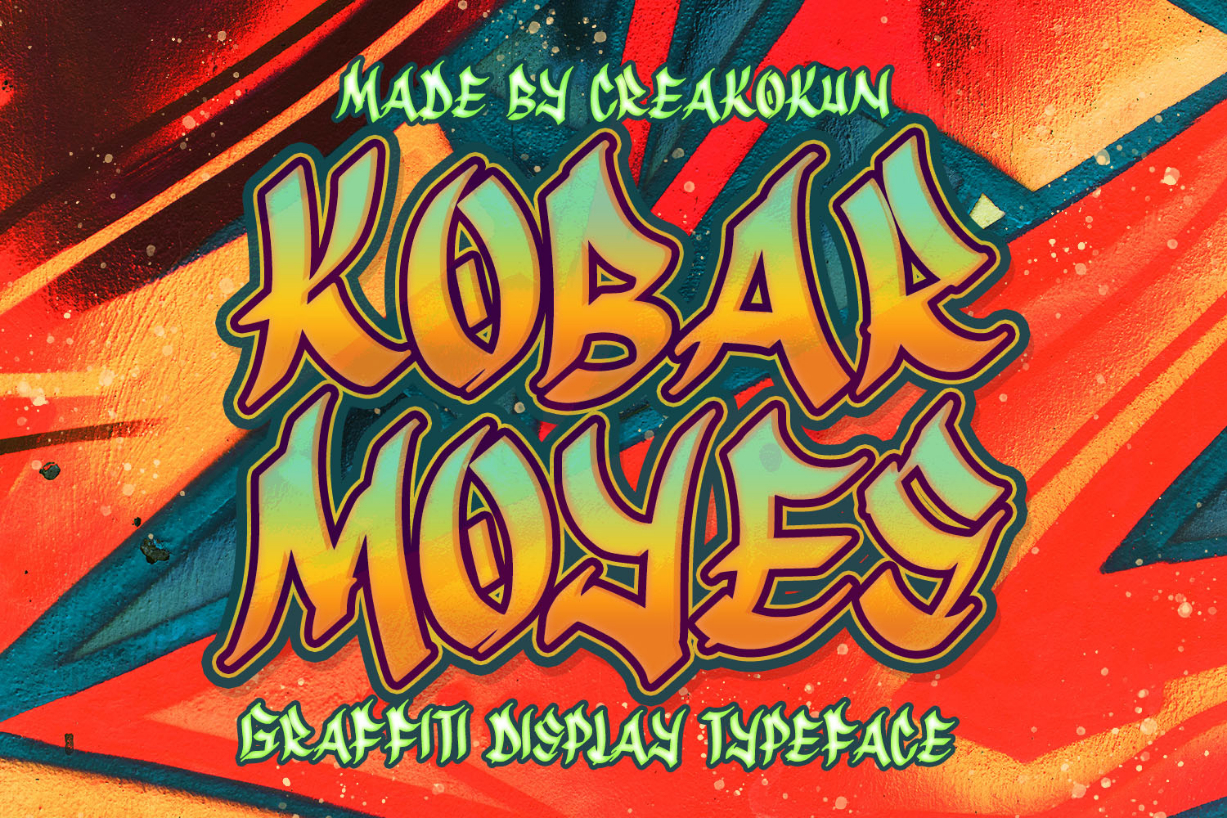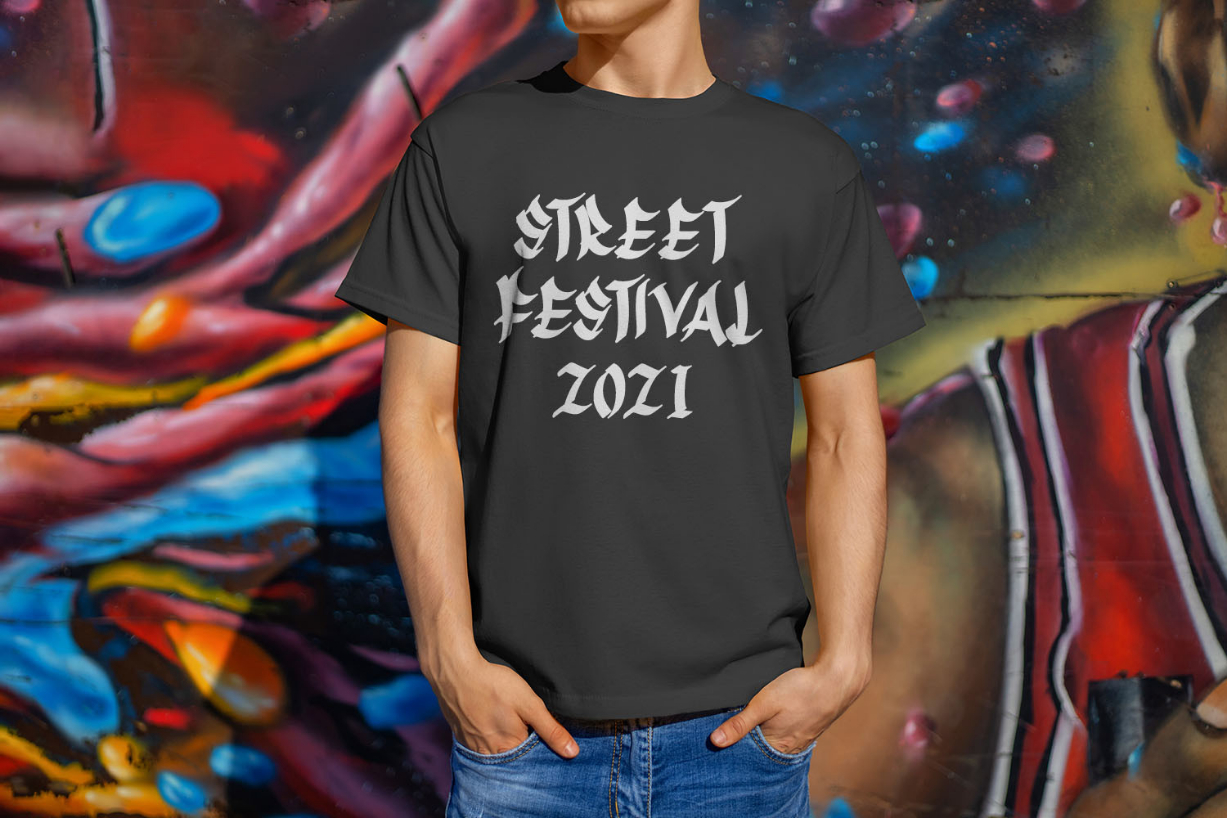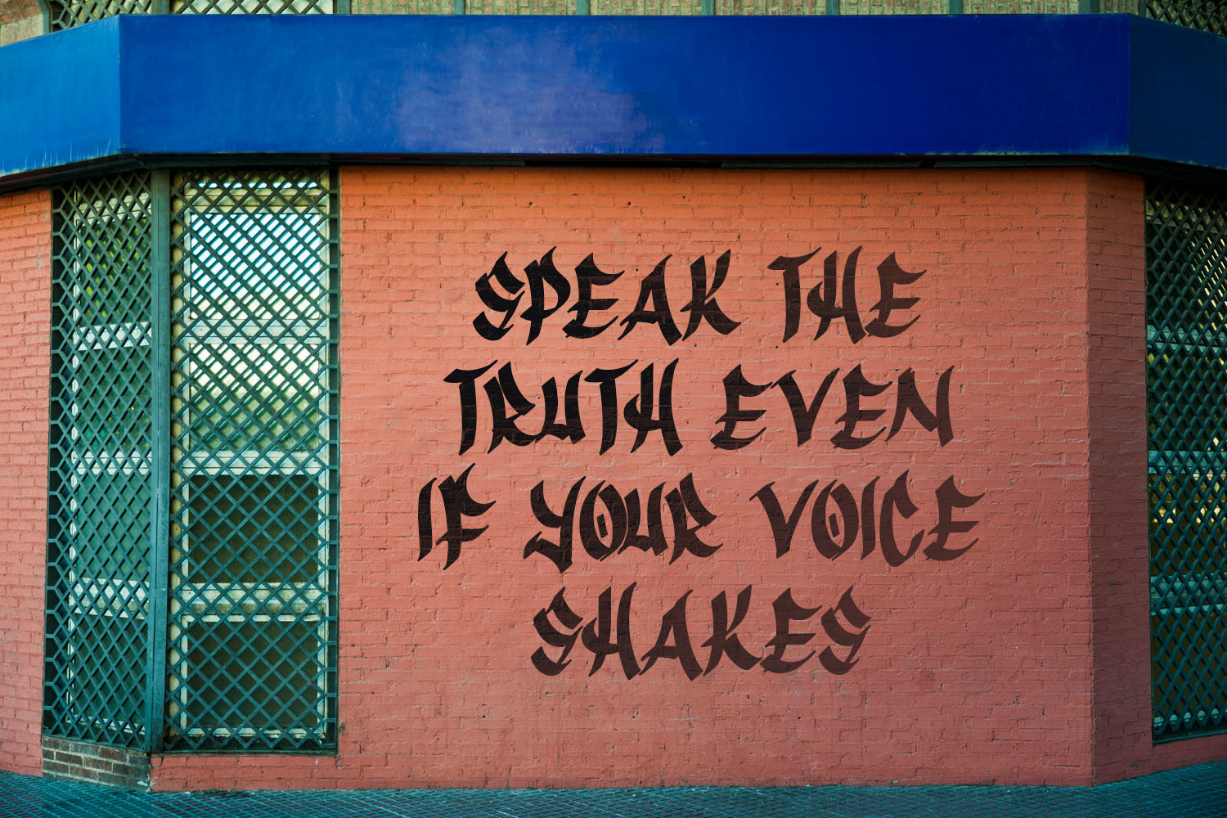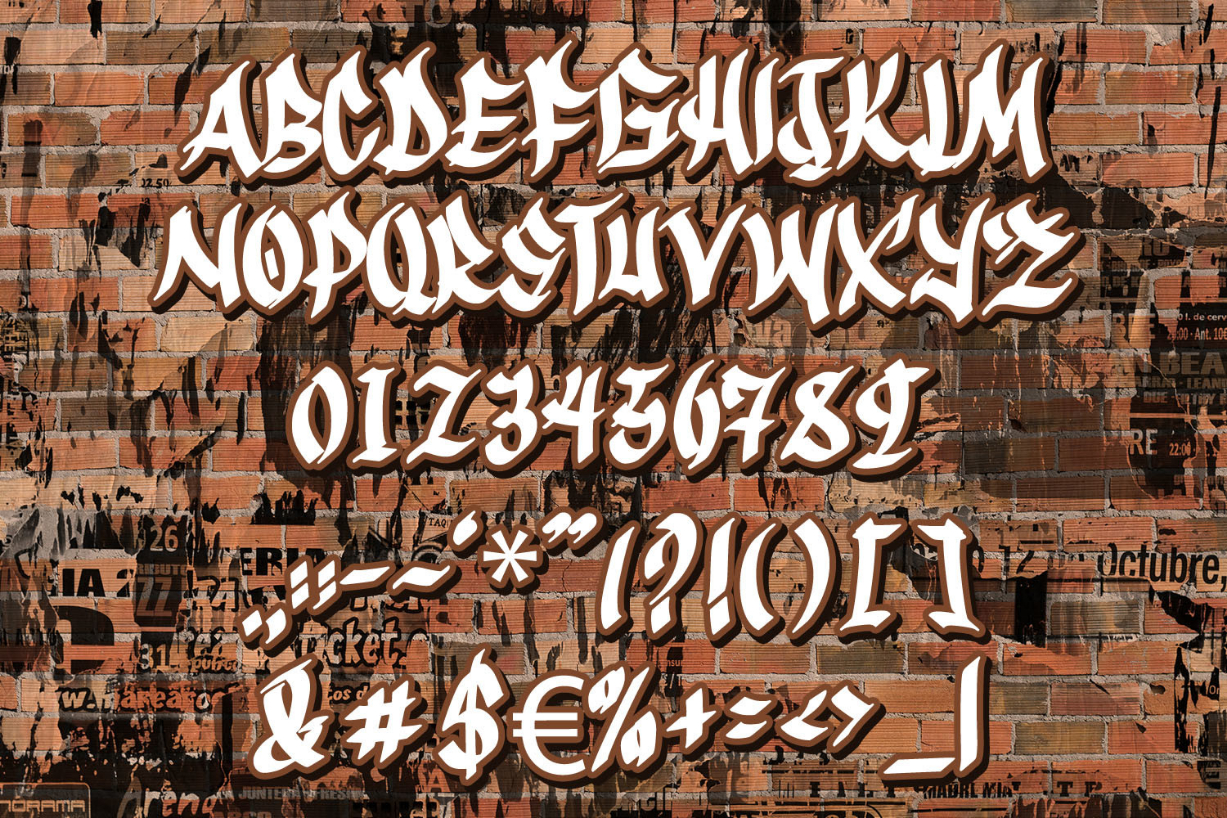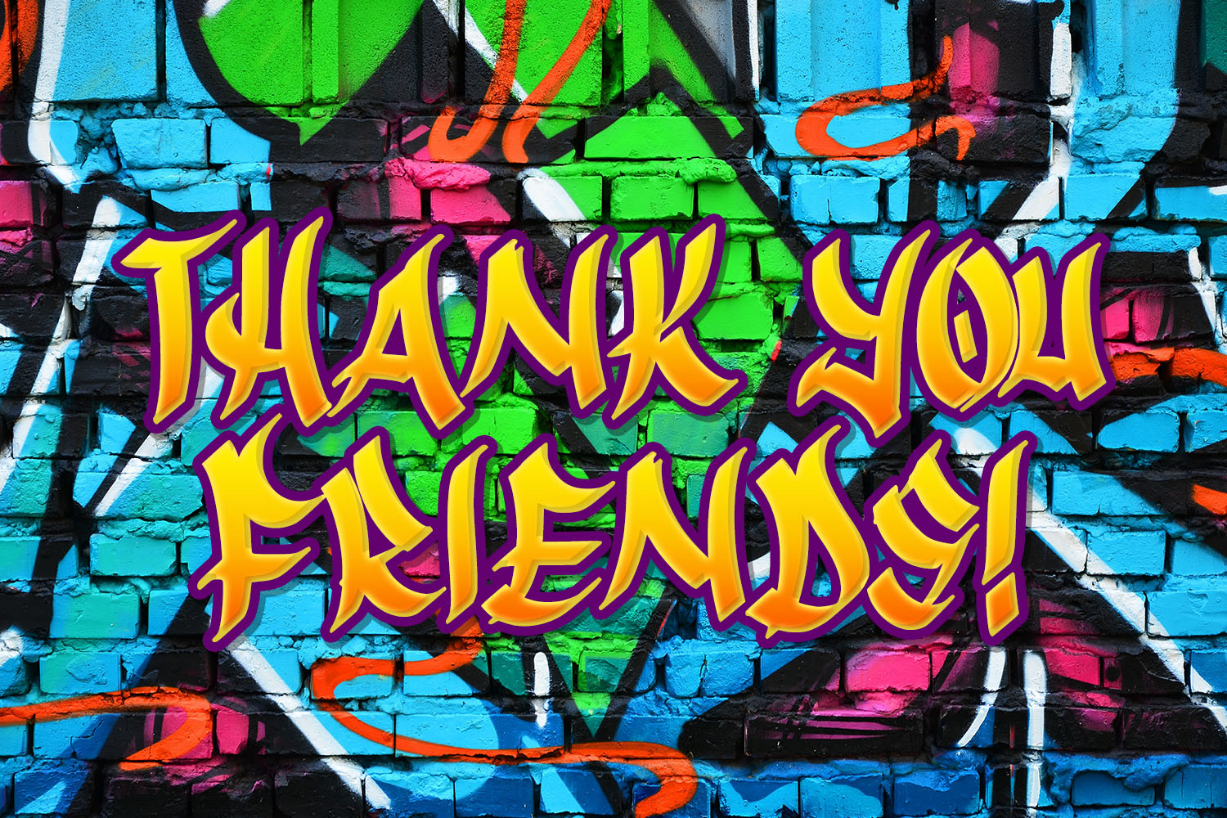
Kobar Moyes Font
About Kobar Moyes Font
Kobar Moyes is an awesome graffiti styled blackletter font. This font is suitable for designs such as t-shirts, sportswear, logos, advertisements, clothing, and more.